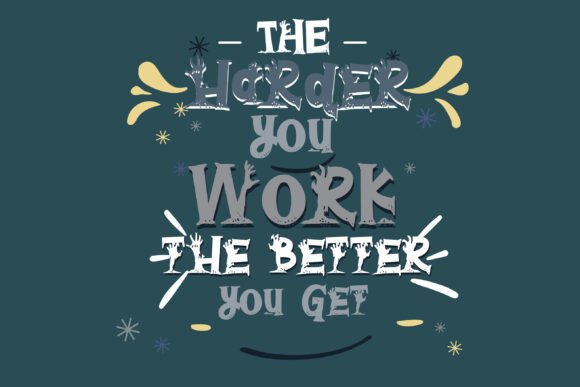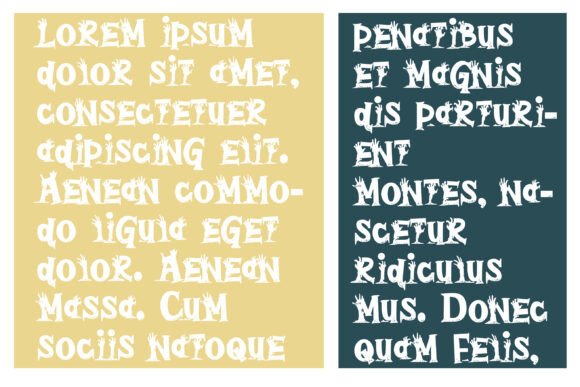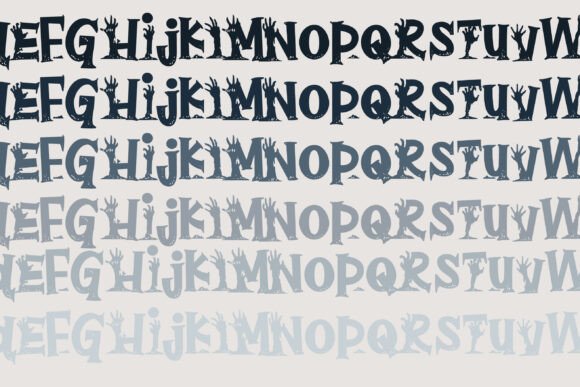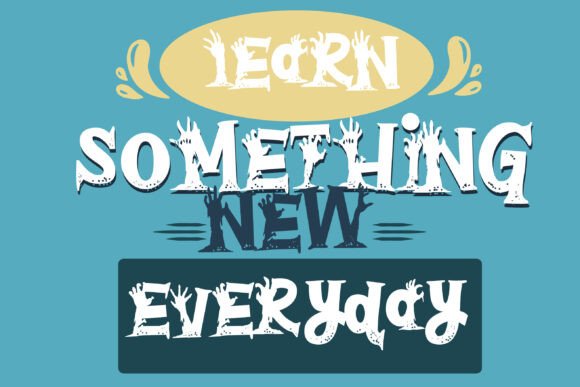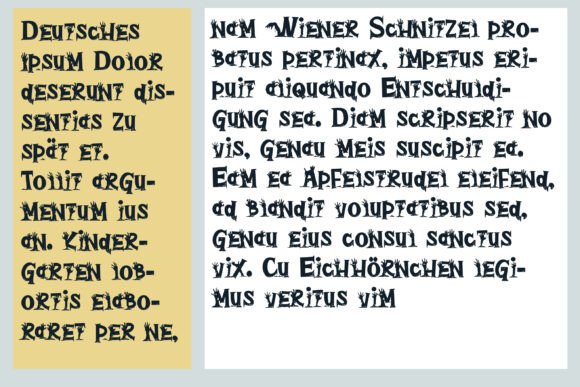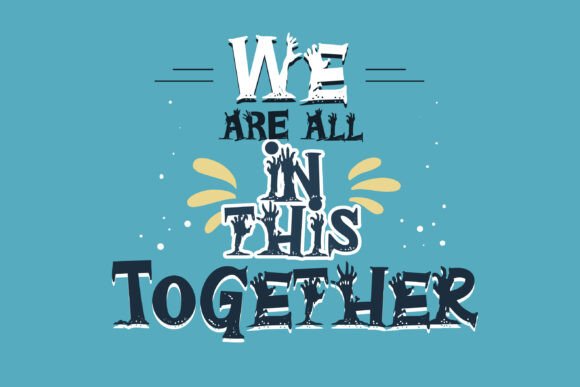
Introduction to Plague Returns Font
As a designer, there’s nothing quite like the thrill of discovering a new font that sparks your creativity. You’re working on a project, pouring over ideas, and then – suddenly – you stumble upon the perfect design resource. That’s exactly what happened when I came across the Plague Returns Font, a hand-crafted masterpiece that’s equal parts eerie and elegant.
With its zombie-like elements and unique flair, the Plague Returns Font is the perfect addition to any creative project. Whether you’re working on a spooky-themed invitation or a high-quality design for a client, this font is sure to bring an air of sophistication and intrigue to your work. And the best part? It’s a free download, complete with a transparent background that makes it easy to integrate into your design.
As a valuable resource for designers, the Plague Returns Font is a must-have in any design arsenal. Its versatility and unique character make it an ideal choice for a wide range of creative projects, from greeting cards to posters. So why not give it a try and see how the Plague Returns Font can elevate your next design to the next level?
Key Features of Plague Returns Font
- Transparent background, allowing for seamless integration into any design
- Multi-language support, including Latin, Cyrillic, and Greek alphabets
- High-resolution design, suitable for print and digital applications at 300 DPI
- Unique, bold, and ornate design style, perfect for making a statement in any creative project
Honest Review: Plague Returns Font
I recently had the chance to work with the Plague Returns Font, and I’m excited to share my honest thoughts with you.
- ✨ High-quality design: The font is beautifully crafted with a unique, gothic-inspired style that’s perfect for creative projects.
- ✨ Transparent background: The transparent background option gives you flexibility when designing, allowing you to easily overlay the font on different backgrounds.
- ⚠️ Limited font sizes: The font may not be suitable for large-scale projects, as it’s designed for smaller text sizes.
- ⚠️ Limited language support: I noticed that the font only supports a limited number of languages, which may be a concern for designers working on international projects.
Overall, I’m impressed with the Plague Returns Font’s unique design and versatility. While it may have some limitations, it’s a great resource for designers working on creative projects, and the free download option makes it an attractive choice.
The Plague Returns Font is ideal for use in creative projects such as posters, flyers, and brochures. It’s also great for use in digital design projects such as website headers and social media graphics.
To get the most out of the Plague Returns Font, experiment with different font sizes, colors, and styles to create a unique look. You can also combine the font with other design elements such as images and graphics to create a visually appealing design.